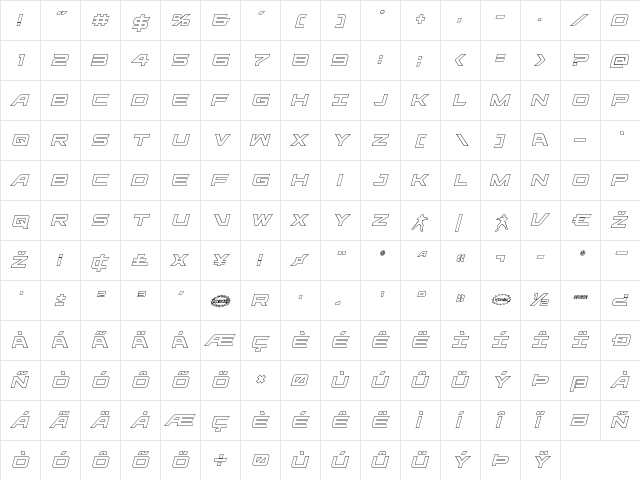
Ghost Clan Outline Italic Italic
Design Context for Ghost Clan Outline Italic Typeface
Ghost Clan Outline Italic brings ornamental detail and strong personality to headlines and identities, where visual impact matters more than quiet functionality. The dynamic lean of this cut emphasises speed and emphasis in any layout.
Font Pairing: Pair with a clean neutral sans-serif for body copy to let Ghost Clan Outline Italic's character lead without overwhelming the composition.
Pro Tip: Use Ghost Clan Outline Italic exclusively at display sizes — it was designed to be seen, not read at length. Let a neutral companion handle body copy.